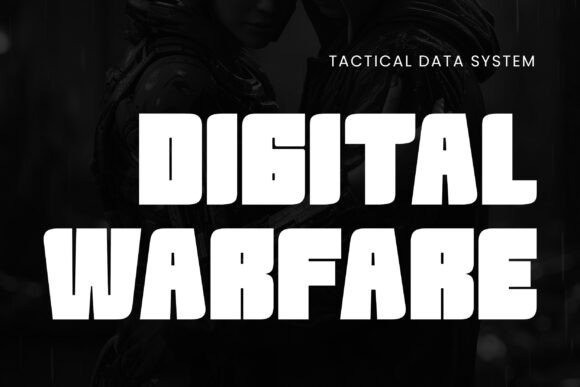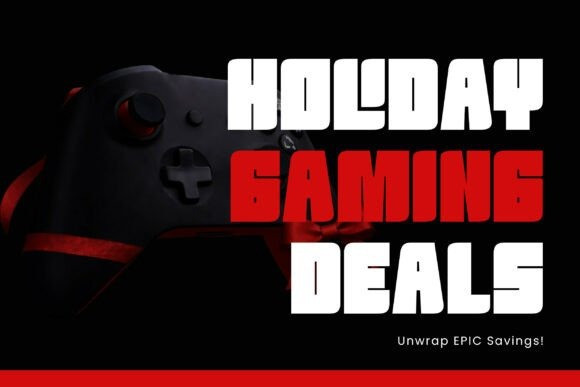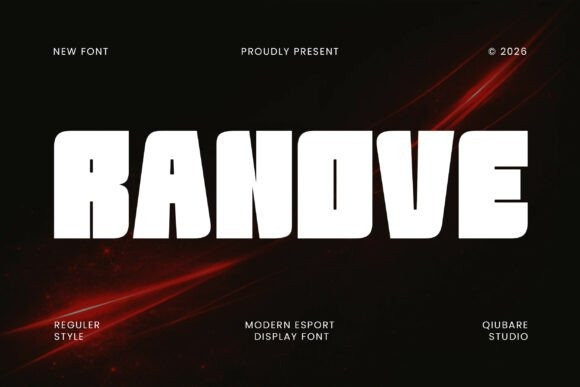
Ranove Font
Ranove Font is a bold and modern display font designed to deliver a strong, futuristic, and high-impact visual presence. With its sharp edges and solid geometric structure, this typeface brings a powerful and aggressive tone—perfect for designs that need to stand out.
Built for modern creators, Ranove works exceptionally well in gaming, esports, technology branding, and digital interfaces. Its heavy weight and distinctive shapes make it ideal for headlines, posters, and any visual content that demands attention. Despite its bold appearance, Ranove maintains good readability, making it versatile across various design needs.